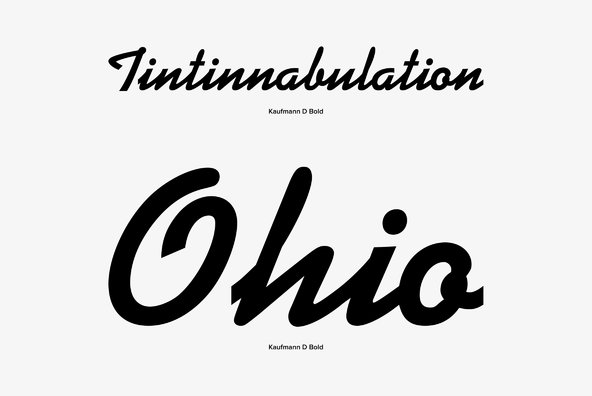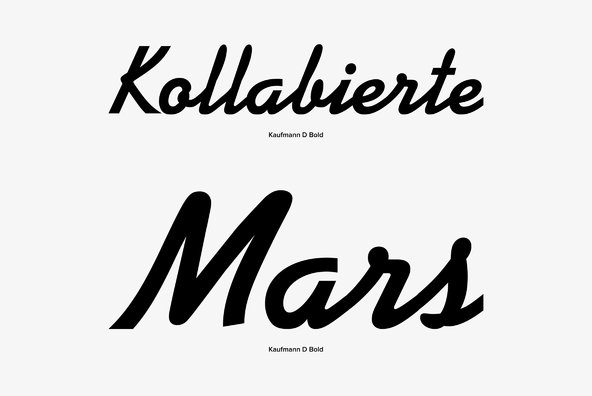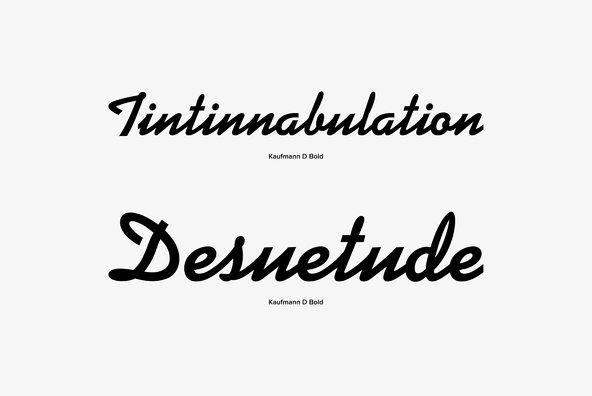
Kaufmann
Designed by Max R. Kaufmann in 1936, Kaufmann is a script font release by URW. Contains language support for West, East, Turkish, Baltic, and Romanian.